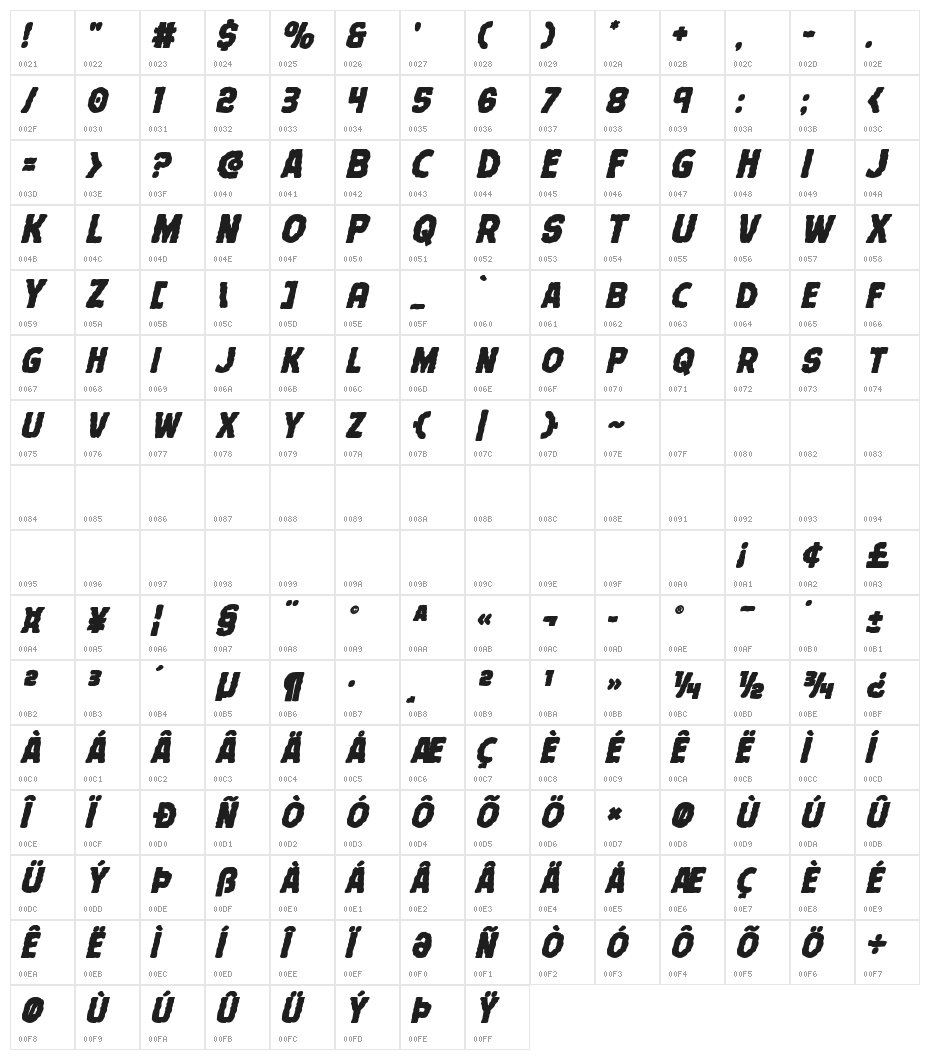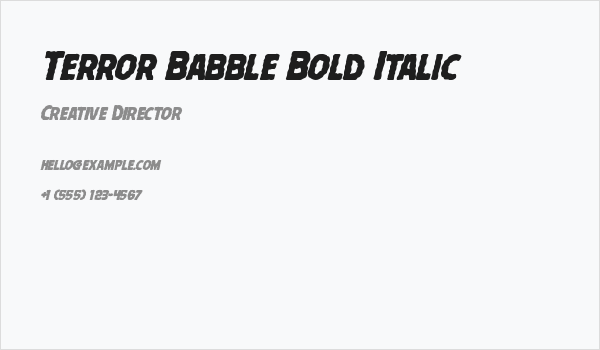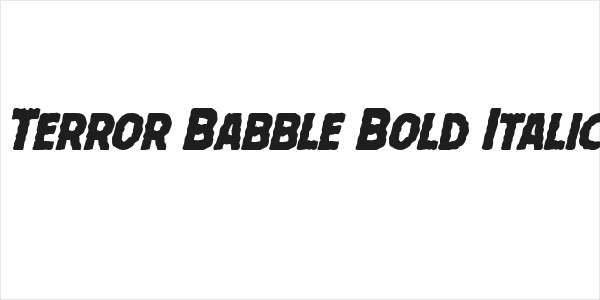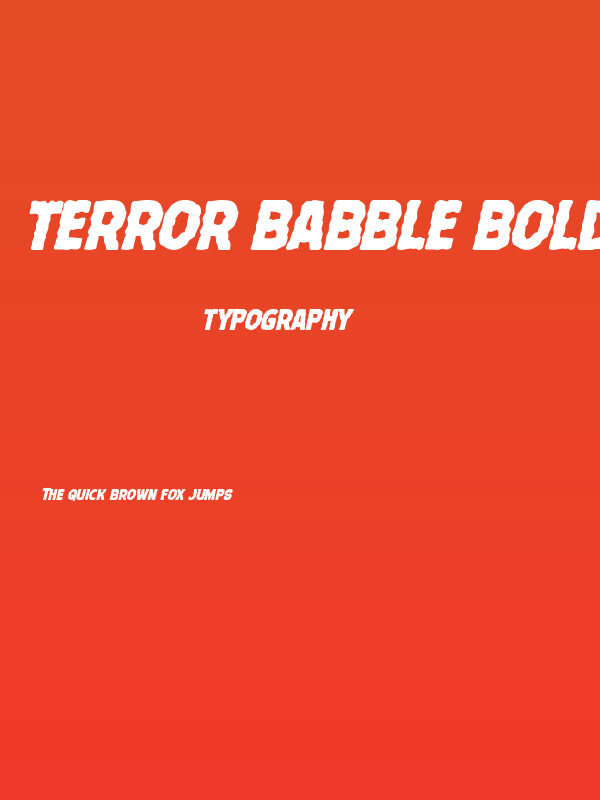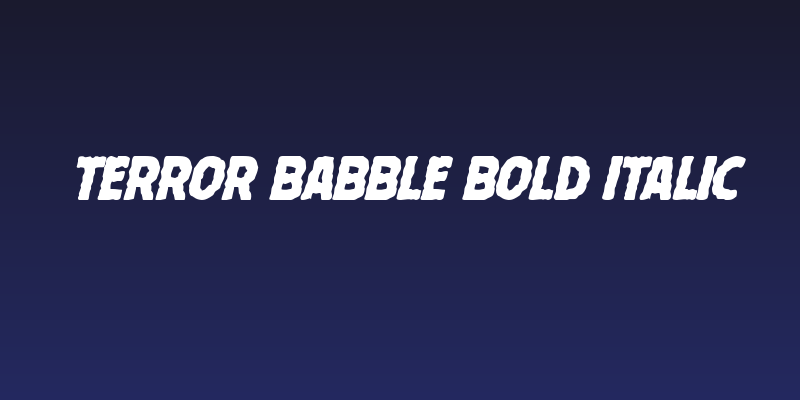
Terror Babble Bold Italic Font
Terror Babble Bold Italic Description
This font features a bold and italicized style with a distinctive, jagged edge that gives it a dynamic and energetic appearance. The characters are heavily weighted, providing a strong visual impact. The strokes are uneven, adding a sense of movement and unpredictability. This font is highly decorative, making it suitable for attention-grabbing headlines or creative designs. The character spacing is tight, enhancing the compact and powerful look of the text. The overall style is modern and edgy, perfect for projects that require a bold statement.
| Overall Style | Modern, Edgy |
| Proposed Projects | Ideal for posters, album covers, video game graphics, or any project needing a bold, eye-catching typeface. |